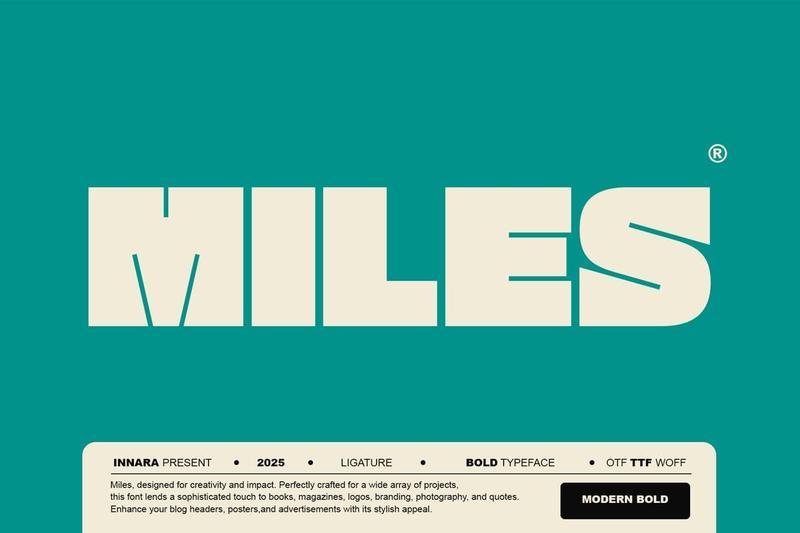
**Miles** is a typeface born to stand out. This Bold font is not merely a collection of letters; its a powerful, character-driven visual statement. If youre yearning for a font that flawlessly blends classic, high-end aesthetics with an unmatched modern energy, Miles is the definitive choice.
This typeface is designed with perfect precision; its heavy, sturdy forms guarantee instant visibility, while the distinctive, elegant curves provide a sophisticated touch that sets it apart from the crowd. Miles effectively communicates confidence, luxury, and daring, making it an essential investment for brands that demand respect and memorability.
Imagine Miles gracing your high-end magazine covers, serving as the exclusive logo for premium branding, or elevating your advertising poster headlines into captivating works of art. This font is incredibly versatile and built for a wide range of creative mediafrom books and photography to inspirational quotes. The inclusion of Ligature features also ensures your text flows smoothly, adding a typographic refinement often missing in bold display fonts.
Its time to elevate the visual quality of your projects. Step away from the ordinary and switch to Miles, the OTF, TTF, and WOFF typeface ready to transform your blog headers, ad campaigns, and marketing materials with timeless appeal and unparalleled style. Miles: Turn up the volume, maintain the class.